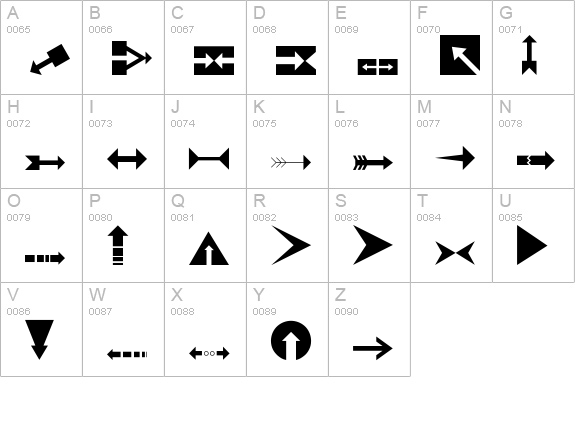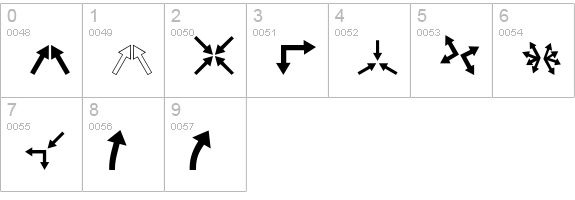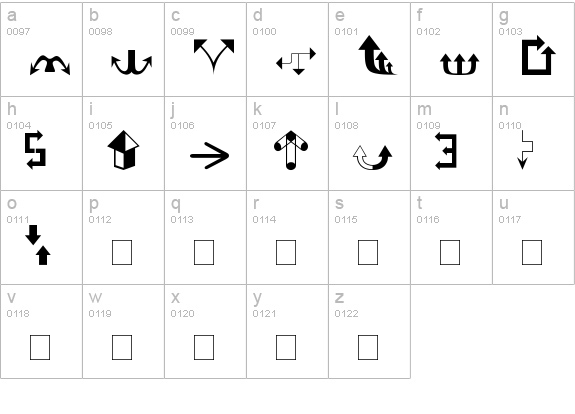
Carr Arrows (filled) Font Details
Carr Arrows (filled) font is a dynamic and eye-catching typeface that is perfect for adding a touch of creativity and personality to your projects. With its bold and unique arrow designs, this font is sure to make a statement and draw attention to your content. The filled style adds a sense of depth and dimension, making each character stand out on the page. This font is versatile and can be used for a variety of purposes, from branding and logos to posters and social media graphics. Its modern and sleek design will give your work a professional and polished look. Best of all, Carr Arrows (filled) font is completely free to download at FontsMarket.com. So why wait? Add this font to your collection today and take your designs to the next level!